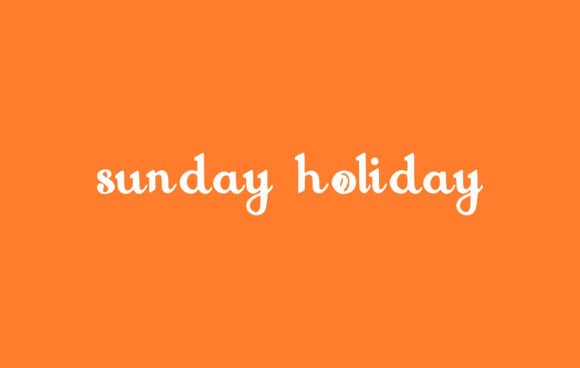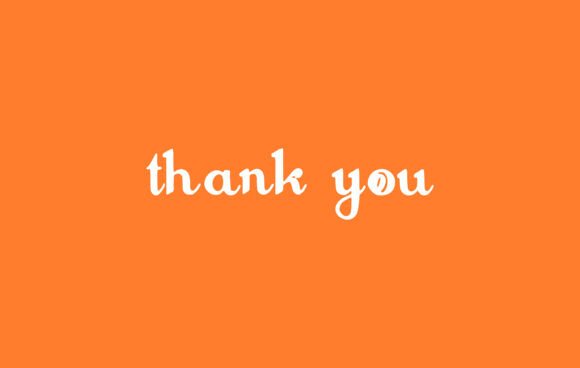
Unleash Your Creativity with the Buccaneer’s Call Font
Have you ever sat at your desk, staring at a blank page, trying to come up with the perfect headline or title for your next creative project? You know the feeling – a mix of excitement and frustration as your mind goes blank. But what if you had the perfect tool to spark your creativity and take your designs to the next level?
Enter the Buccaneers Call Font, a beautifully crafted, authentic handwritten font that adds a touch of romance and sophistication to any design. This versatile font is perfect for magazine headlines, social media posts, branding, wedding invitations, and so much more. With its legibility and elegant design, the Buccaneers Call Font is a valuable asset for any designer looking to elevate their work and make a lasting impression.
Buccaneers Call Font Key Features
- Font Style: A classic, elegant script font with a touch of pirate flair, perfect for creating a sense of adventure and sophistication.
- Unique Characteristics: Features intricate, hand-drawn details and subtle texture, giving it a unique and authentic feel.
- Font Weight and Style: Includes light, regular, and bold weights, as well as italic and bold italic styles, to cater to various design needs.
Buccaneers Call Font Review
I’ve had the chance to dive into the Buccaneers Call Font, and I’ve got some thoughts to share. Overall, it’s a great addition to any design project looking to add some swashbuckling flair.
- Unique aesthetic: The Buccaneers Call Font has a distinctive, hand-drawn feel that’s sure to grab attention.
- Expressive characters: The font’s irregularities and flourishes make it perfect for headlines and titles.
- High-quality rendering: The font renders beautifully across various devices and screen sizes.
- Legibility issues: At smaller font sizes, the Buccaneers Call Font can become difficult to read due to its intricate details.
- Limited language support: The font may not be suitable for languages with complex scripts or characters.
- Overuse: The font’s unique style can become overwhelming if overused in a design project.
Overall, I think the Buccaneers Call Font is a great choice for designers looking to add some visual interest to their projects. Just be mindful of its limitations and use it judiciously to avoid overwhelming your audience.
Buccaneers Call Font Practical Application Guide
4. Use the font to add pirate-themed elements, such as treasure maps, wanted posters, or ship names.
4. Use the font to create custom pirate-themed graphics, such as flags, signs, or watermarks.
4. Use the font to add pirate-themed elements, such as presentation titles, headings, or body text.
Getting the Most Out of Buccaneers Call Font
Use the font in conjunction with other pirate-themed elements, such as distressed textures or vintage graphics.
Experiment with different font sizes and colors to create a unique and eye-catching design.
Consider combining the font with other fonts to create a layered, dimensional look.
Buccaneers Call font is ideal for pirate-themed projects, such as:
– Pirate adventure movies or TV shows
– Pirate-themed video games
– Pirate-themed events or parties
– Pirate-themed merchandise, such as t-shirts or posters
Alternatives to Buccaneers Call Font for Designers
Playfair Display is a high-end, elegant serif font suitable for luxury brands and high-end fashion designs. It features a classic, vintage look with intricate details and is perfect for titles, headings, and branding materials. When to use: Luxury brands, high-end fashion, and elegant designs.
Comparison: While Buccaneers Call Font has a pirate-themed aesthetic, Playfair Display is more sophisticated and elegant. Playfair Display is ideal for designers who want a refined, high-end look, whereas Buccaneers Call Font is better suited for more playful, adventurous designs.